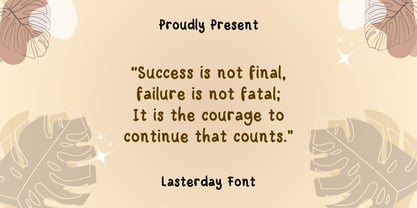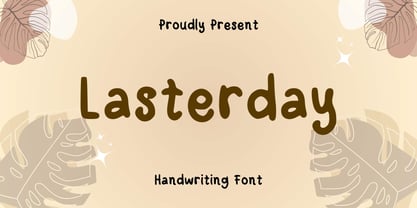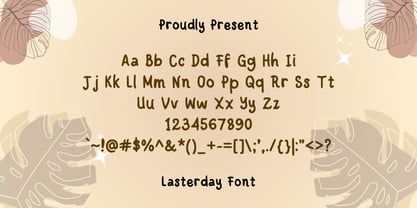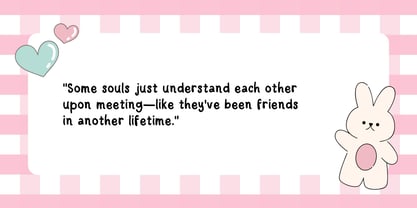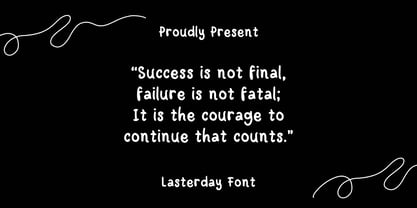
Lasterday
by Sidkia Fonts
The Lasterday Font Family was designed by and published by Sidkia Fonts. Lasterday contains 1 styles. More about this family
The Lasterday font has a cute, rounded handwritten style that feels cheerful and friendly. The smooth curves and playful letterforms make it perfect for designs that want to feel fun, lighthearted, and approachable. It works beautifully for children’s projects, quotes, invitations, social media posts, or any creative work where you want to add a touch of warmth and positivity